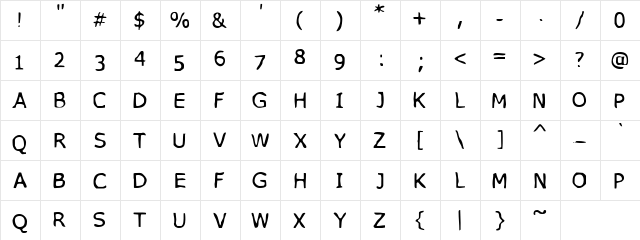
VTC PizzOff Regular
| Designer | WolfBainX |
Design Context for VTC PizzOff Typeface
VTC PizzOff is a composed and adaptable typeface that performs quietly and consistently across a wide range of design contexts.